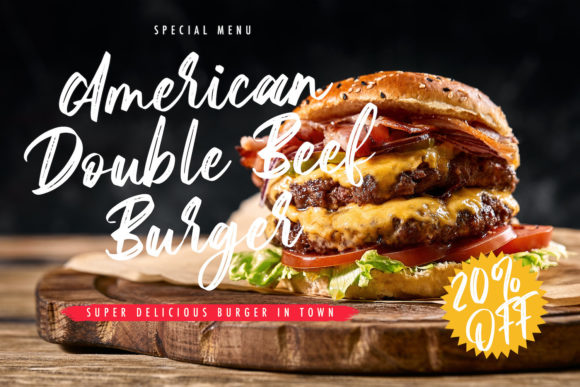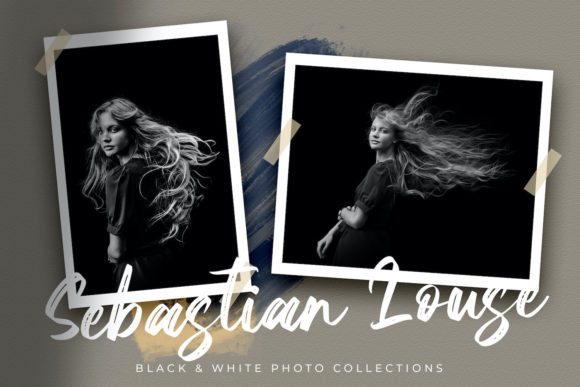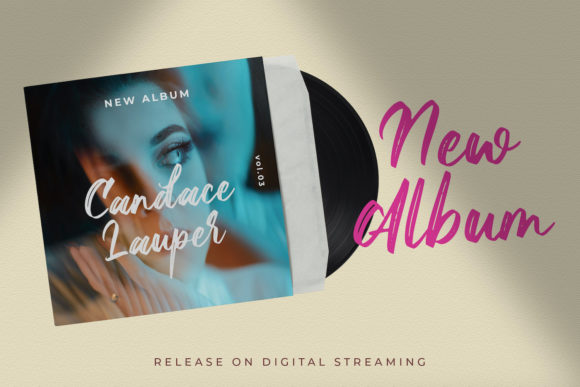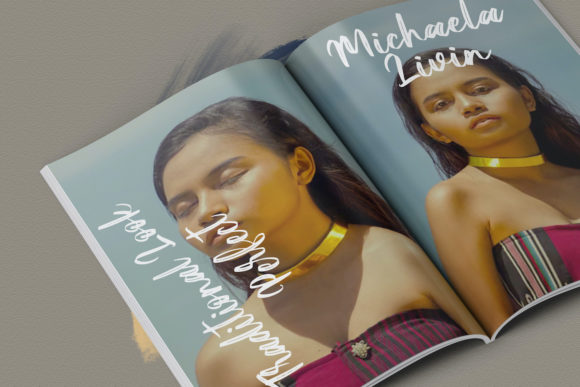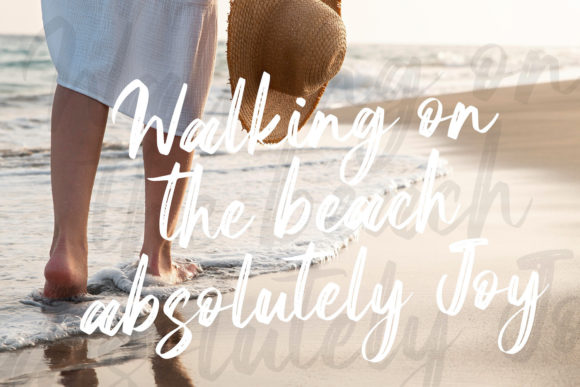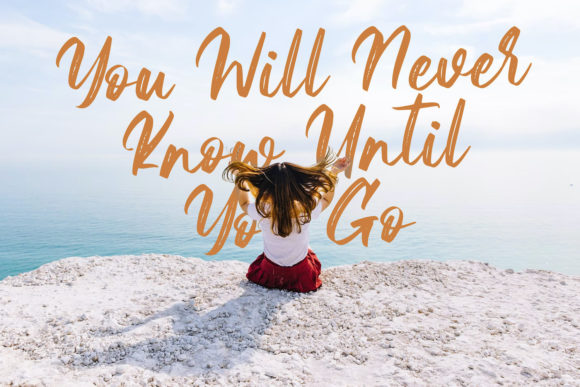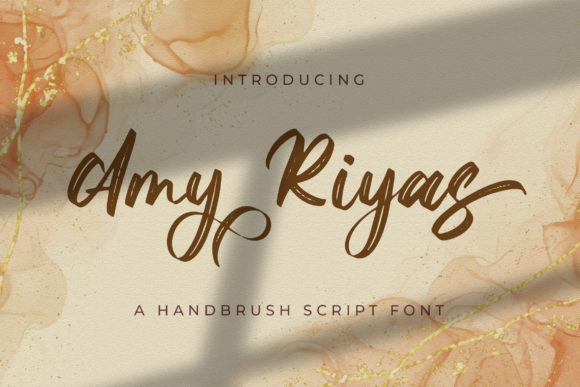
The Designer’s Delight: Amy Riyas Font
Have you ever been in the middle of a design project, and suddenly, you’re stuck on finding the perfect font? I recall a recent experience where I was working on a branding project for a boutique client, and I just couldn’t find a font that captured the essence of their elegant yet playful vibe. That’s when I stumbled upon the lovely Amy Riyas Font. It’s a brushed handwritten font that has become my go-to for adding a touch of sophistication and whimsy to my designs.
I’m excited to share my honest review of Amy Riyas Font, highlighting its strengths and a few minor quirks.
- ✨ Beautifully balanced characters: Each letter is carefully crafted to ensure a harmonious flow, making it perfect for body text and headings.
- ✅ Versatile and adaptable: Amy Riyas Font seamlessly integrates with a wide range of design styles, from minimalist to elaborate.
- 💫 Elegant and refined: The font’s subtle brush strokes and cursive flair add a touch of sophistication to any design.
Minor Quirks
While Amy Riyas Font is an excellent choice, there are a few things to keep in mind:
- ⚠️ Limited use in very small sizes: Due to its delicate nature, the font may not be suitable for extremely small font sizes or low-resolution applications.
- 🤔 Occasional glyph inconsistencies: Some users have reported minor inconsistencies in certain glyphs, but these are relatively rare and usually not noticeable.
- Experiment with OpenType features, such as ligatures and stylistic alternates, to add visual interest to your text.
The Story Behind Amy Riyas Font
The story behind Amy Riyas Font is one of passion and creativity. While the font’s actual origins are unclear, it’s believed to have been designed by a talented type designer who aimed to create a beautiful, elegant script font that would inspire creatives around the world. The font’s unique blend of classic and modern elements has made it a favorite among designers and crafters.
| What is Amy Riyas Font? | Amy Riyas Font is a lovely brushed handwritten font with beautiful and well-balanced characters. |
| Is Amy Riyas Font suitable for body text? | Yes, Amy Riyas Font is suitable for body text, but it’s recommended to use it in larger font sizes (12pt or larger) for optimal readability. |